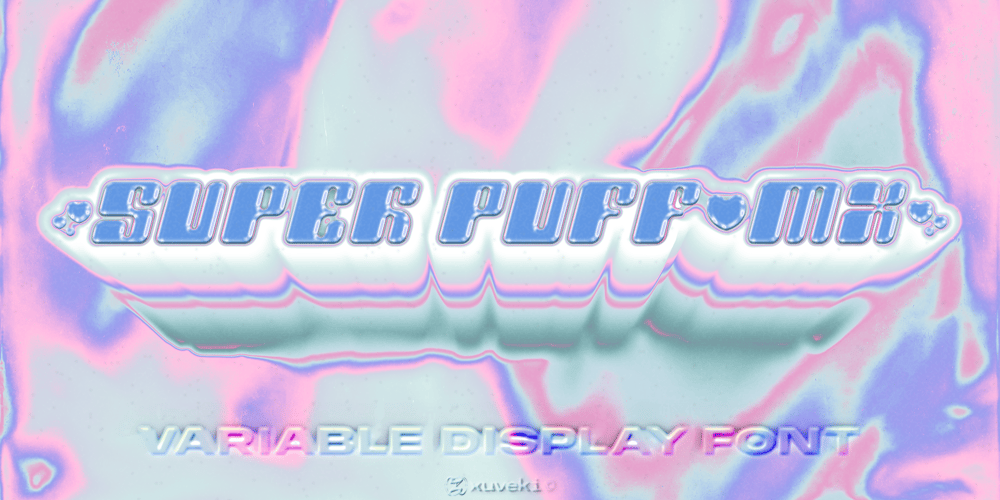
Super Puff MX
Super Puff MX font
Super Puff MX Font Family was designed by Abe Zeinali and published by Xuveki. Super Puff MX contains 5 styles and family package options. Super Puff MX is a Y2K inspired variable display typeface that takes from early 2000’s futurism, pop, and cartoon aesthetics. Due to its heavy weight and alternates it offers, it’s perfect for a variety of logos, 3D, and motion graphics.SPMX was designed specifically for those use cases, and its wide range of styles and alternates gives you lots of freedom for creating unique graphics that still capture the same fun, futuristic, and playful early 2000’s aesthetic.Features & What’s Included: Variable font file that allows you to choose any slant degree from Regular to Full Tilt. OTF font files in 4 styles or slants, from Regular to Full Tilt. This is included because many young, talented designers around the world don’t have access to programs that can take advantage of a variable font. I want them to have the option of using properly slanted and kerned oblique instances of Super Puff. Robust OpenType features including a vast pool of alternates and stylistic sets giving you lots of choices when choosing letters, numbers, and punctuation. Two stylistic sets for letters and numbers One stylistic set for punctuation and symbols One stylistic set that replaces punctuation with Y2K style icons Extensive Latin language support covering almost all of Europe and South America. All multilingual glyphs have access to alternates as well. Super Puff MX was designed and developed by Abe Zeinali/Xuveki.